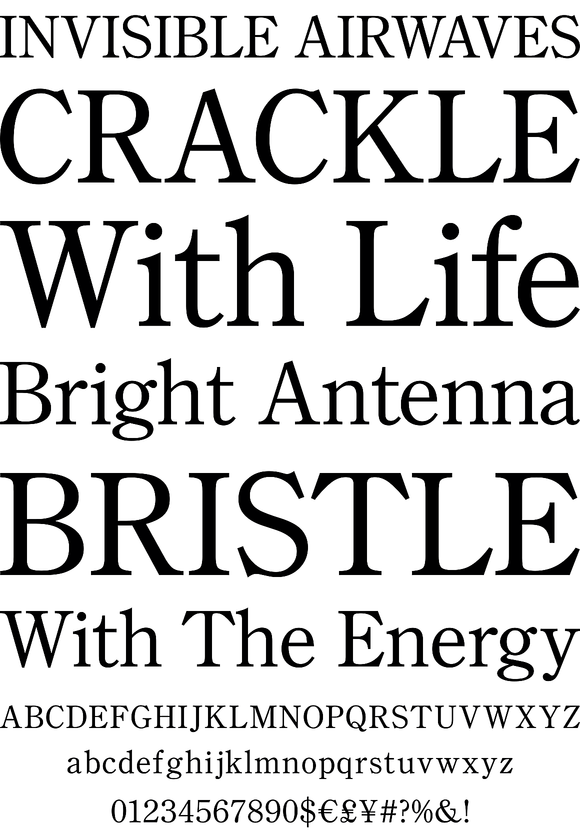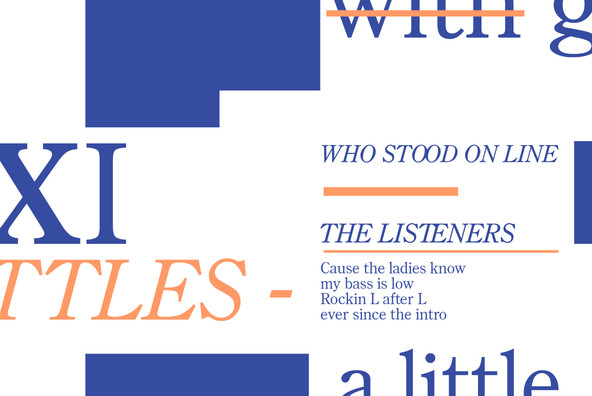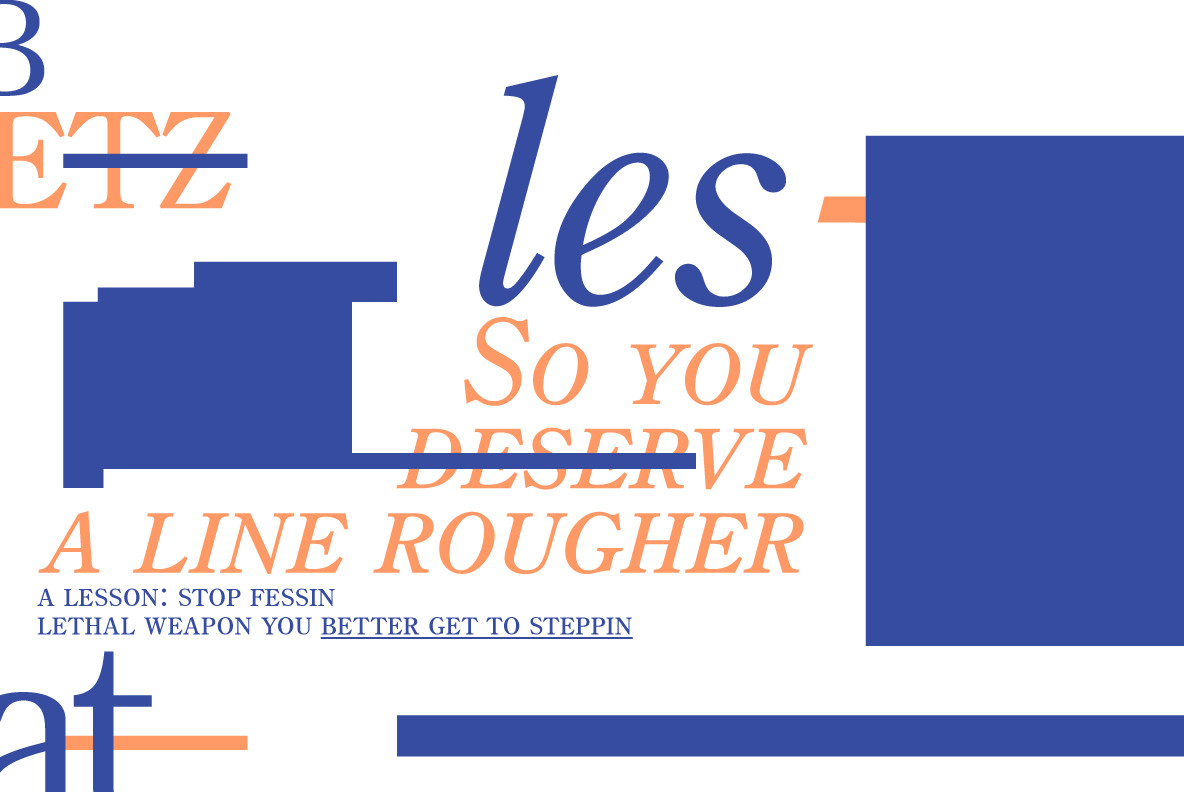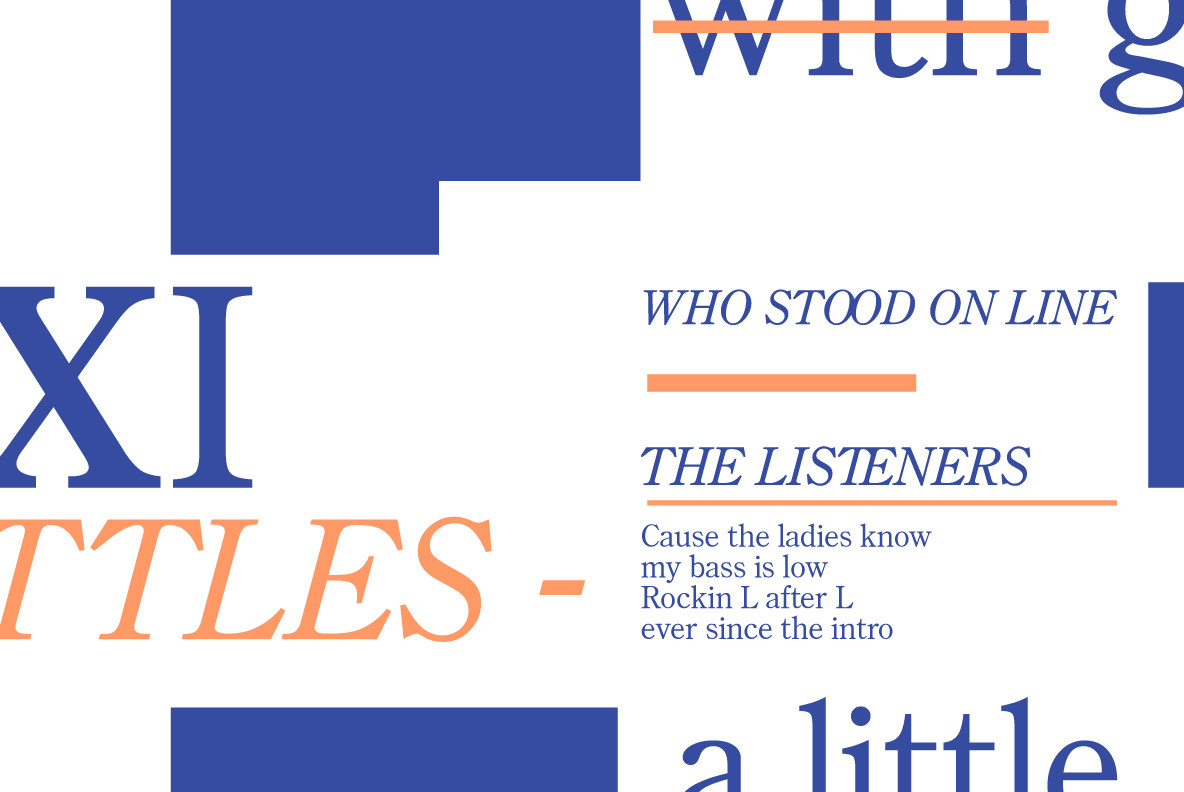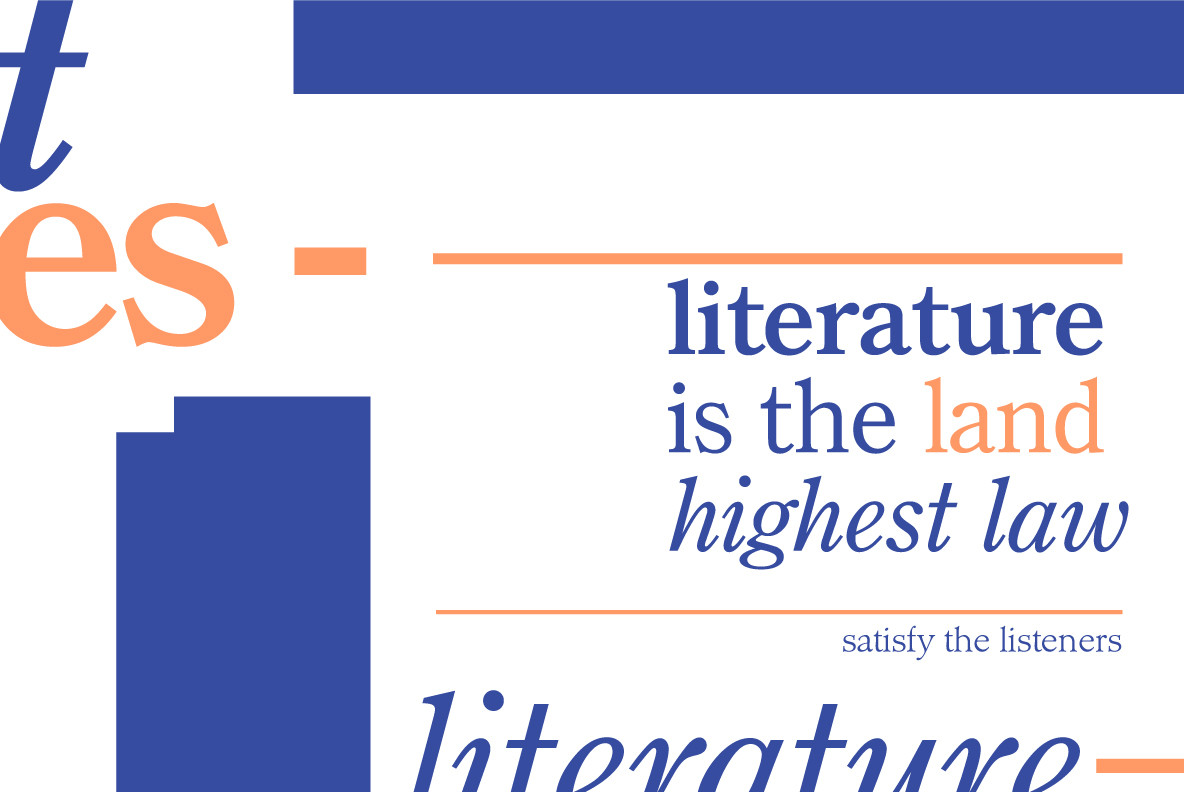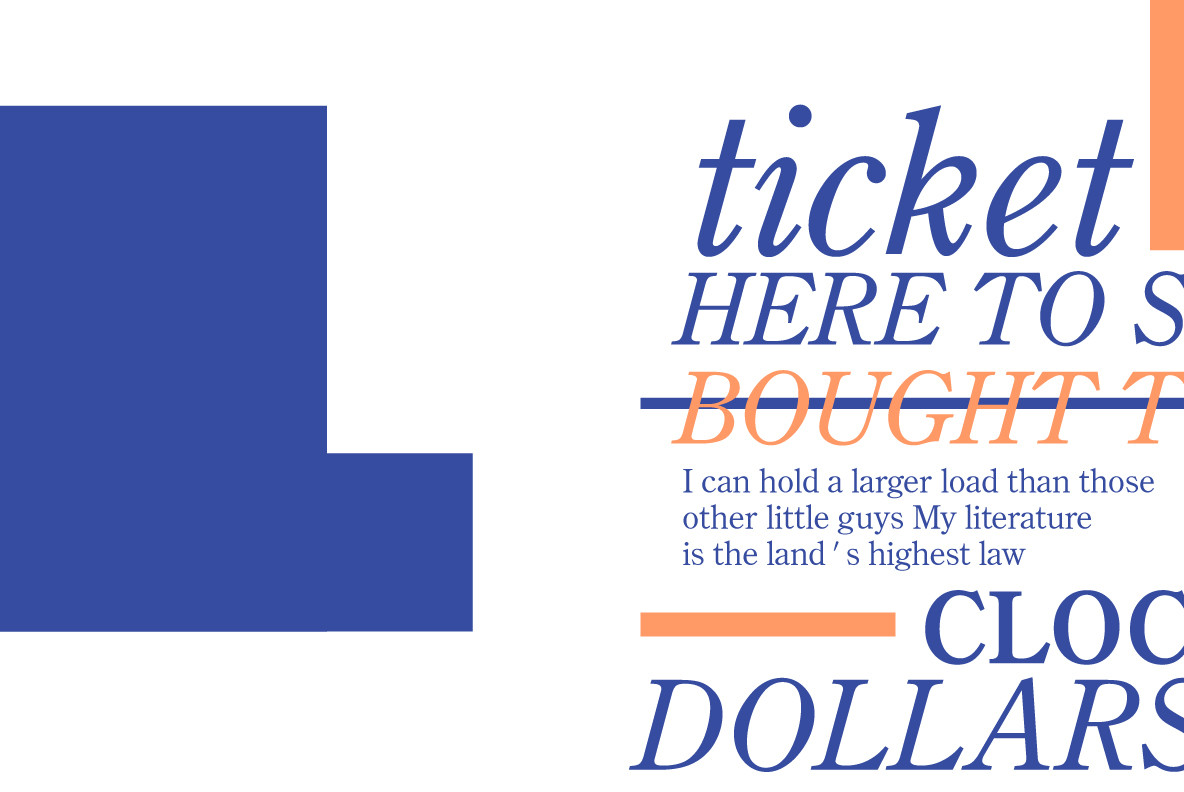
Designed by Les Usherwood. Digitally engineered by Steve Jackaman. This beautiful version of Century Old Style by Les may be superior to any existing versions.